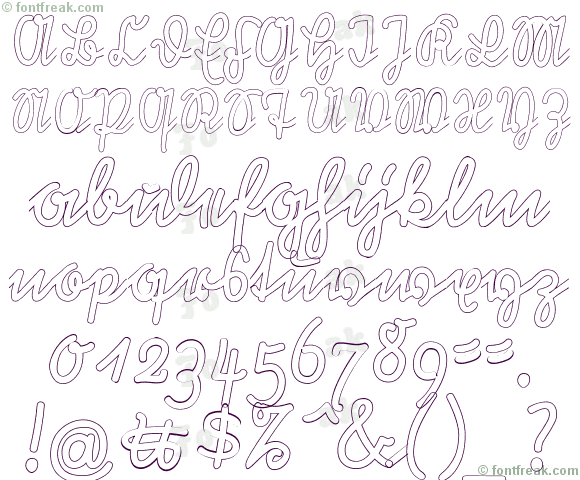
Rastenburg U1SY
Rastenburg Band
RastenburgU1SY-Bold
RastenburgSchraegU1SY-Bold
Rastenburg U1SY, designed by Peter Wiegel, is a captivating display font that merges an artistic flair with readability, making it an excellent choice for a variety of creative projects. This font features a unique script style characterized by its flowing curves and elegant letterforms. The strokes are moderately weighted, providing a balanced look that is neither too bold nor too delicate, allowing it to stand out without overwhelming the viewer. The playful design elements, including gentle loops and swirls, add a touch of sophistication while maintaining a casual charm.
With its distinctive visual characteristics, Rastenburg U1SY is particularly well-suited for use in wedding invitations, where its elegant script can beautifully convey romance and joy. Additionally, it works wonderfully on restaurant menus, providing a refined yet approachable feel that enhances the dining experience. Graphic designers can leverage this font for branding materials, capturing attention with its unique personality. Moreover, it is ideal for event posters, where its eye-catching style can draw in crowds and create excitement. Content creators will find it perfect for social media graphics, where a strong visual presence is essential.
Targeting graphic designers, small business owners, and content creators, Rastenburg U1SY appeals to those looking to add a unique, artistic touch to their projects. This font stands out not only for its aesthetic appeal but also for its versatility across various applications. Available for free download, Rastenburg U1SY font free download offers an accessible option for anyone looking to elevate their designs with a touch of elegance and creativity. Its combination of style and functionality makes it a noteworthy addition to any designer's toolkit.